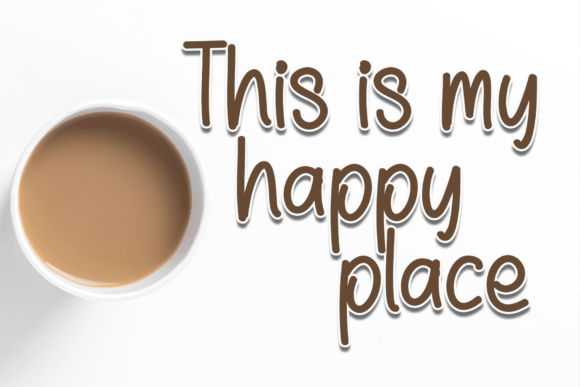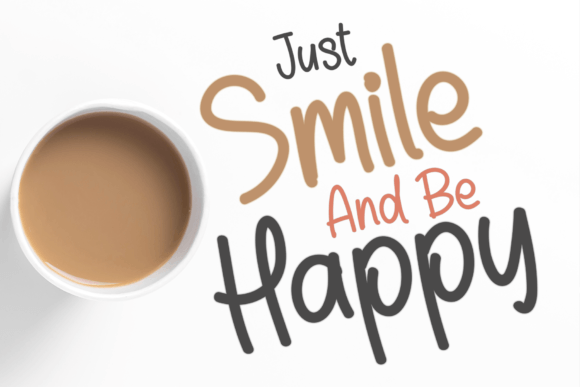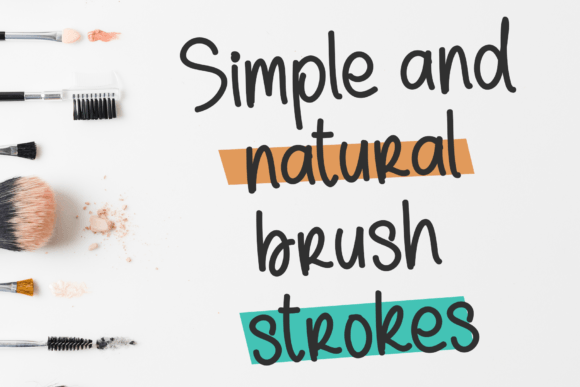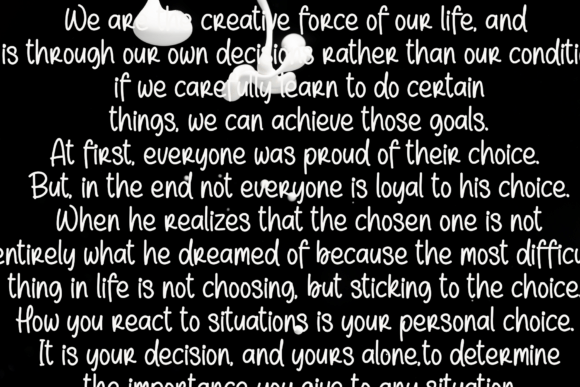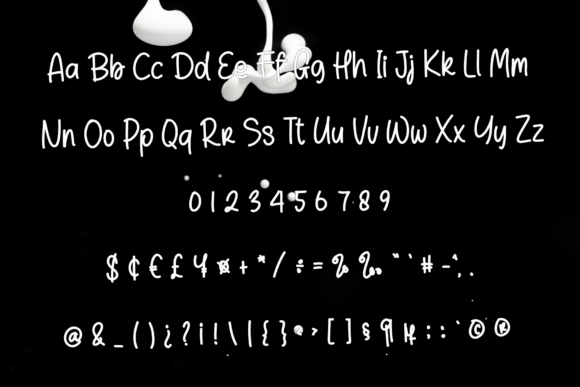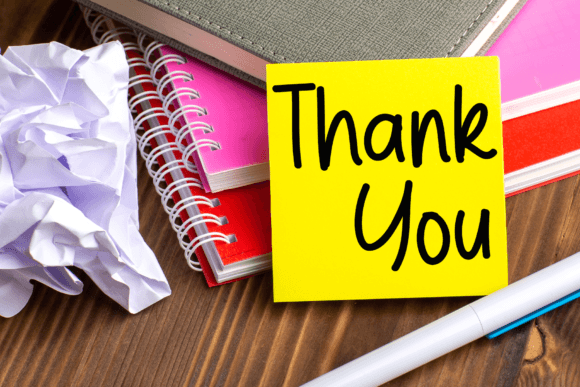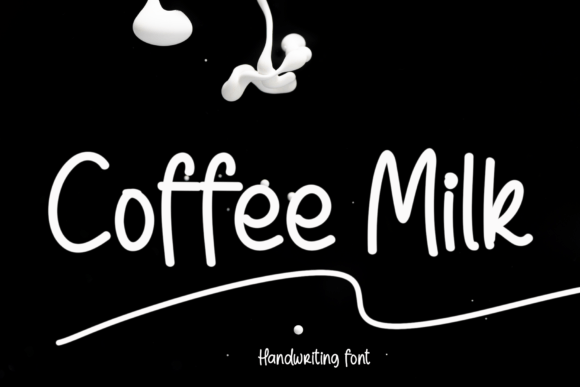
Coffee Milk Font: The Ultimate Choice for Designers and Crafters
Are you tired of using the same old fonts for your designs? Look no further than the Coffee Milk Font, an incredibly unique handwritten font that is sure to become a true favorite among designers and crafters. With its beautiful and distinctive touch, this font is perfect for creating eye-catching logos, branding, and quotes that will make your design come alive!
What Makes Coffee Milk Font So Special?
Coffee Milk Font is a one-of-a-kind handwritten font that has been carefully crafted to provide a unique and beautiful touch to every letter. Unlike other fonts that can be generic and bland, Coffee Milk Font stands out with its distinctive style that is sure to grab attention. Whether you’re a designer, crafter, or simply someone who loves to create, this font is the perfect choice for anyone looking to add a personal touch to their work.
Coffee Milk Font is the ideal choice for creating eye-catching logos, branding, and quotes. Its unique and beautiful touch makes it perfect for adding a personal touch to your designs, and its versatility ensures that it can be used in a wide range of applications. Whether you’re creating a logo for a new business, designing a brand identity, or simply looking for a font to use for your social media quotes, Coffee Milk Font is the perfect choice.
Why Designers and Crafters Love Coffee Milk Font
Designers and crafters love Coffee Milk Font for many reasons. Firstly, its unique and beautiful touch adds a personal touch to any design, making it stand out from the crowd. Secondly, its versatility ensures that it can be used in a wide range of applications, from logos and branding to quotes and social media posts. Finally, its ease of use makes it perfect for designers and crafters of all levels, from beginners to experienced professionals.
Key Features of Coffee Milk Font
- Unique and Beautiful Touch: Every letter has a unique and beautiful touch that will make your design come alive!
- Handwritten Font: Coffee Milk Font is a handwritten font that adds a personal touch to any design.
- Versatile: Perfect for logos, branding, quotes, and social media posts.
- Easy to Use: Suitable for designers and crafters of all levels, from beginners to experienced professionals.
Tips and Tricks for Getting the Most Out of Coffee Milk Font
Here are a few tips and tricks for getting the most out of Coffee Milk Font:
- Experiment with Different Sizes: Try out different sizes to see what works best for your design.
- Play with Colors: Coffee Milk Font looks great in a wide range of colors, so don’t be afraid to experiment.
- Mix and Match: Try pairing Coffee Milk Font with other fonts to create a unique and eye-catching design.
In conclusion, Coffee Milk Font is an incredibly unique handwritten font that is sure to become a true favorite among designers and crafters. With its beautiful and distinctive touch, this font is perfect for creating eye-catching logos, branding, and quotes that will make your design come alive! Whether you’re a designer, crafter, or simply someone who loves to create, Coffee Milk Font is the perfect choice for anyone looking to add a personal touch to their work.